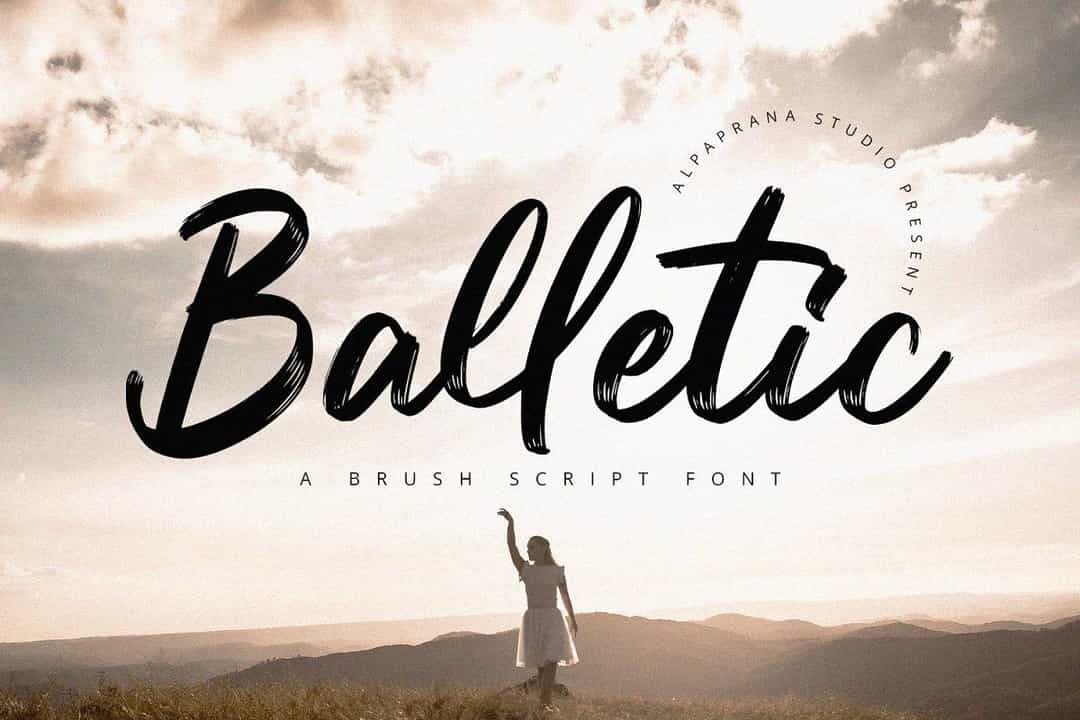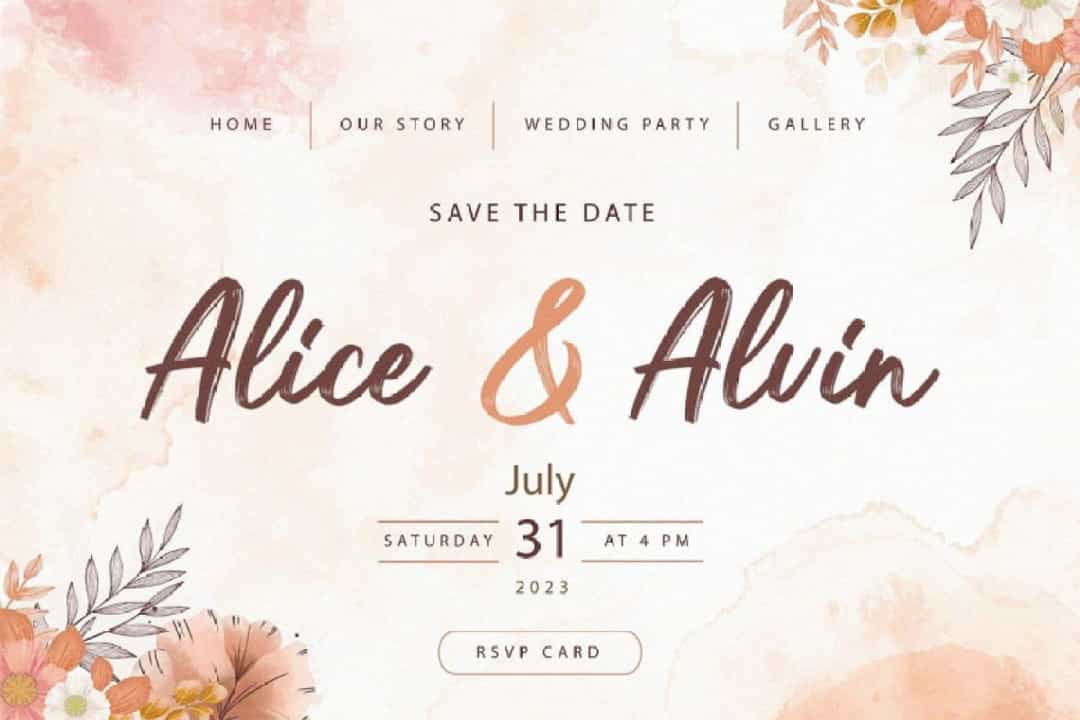
Discover Balletic Font, part of the Brush collection—a versatile and unique font perfect for adding a personal touch to your projects. Download it for free and enjoy crafting designs with style, from invitations to social media posts. This font is available exclusively for personal use, giving you the freedom to create without limits. Unlock your creativity with Balletic Font today!
Balletic is an informal Brush script font characterized by natural brush strokes. Ideally suited for creating logos, branding, design and lettering logotypes as well as clothing posters, magazine packaging shopping bags, posters T-shirts book covers photography special events or any design projects!